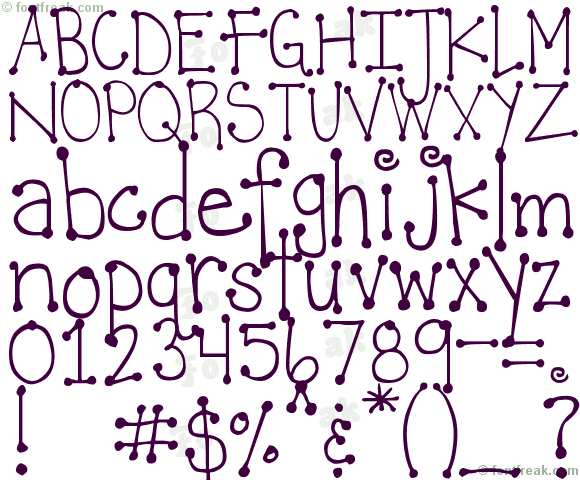
DJB It's Full of Dots by Darcy Baldwin is a whimsical handwritten typeface that adds a playful touch to any design project. This unique font features a distinctive dotted design that gives a sense of fun and creativity, making it a standout choice for those looking to add a bit of personality to their work. The strokes are irregular and light, contributing to a casual and approachable appeal. With its moderate contrast and open spacing, DJB It's Full of Dots offers excellent readability, ensuring that your message is conveyed clearly while still maintaining a sense of charm.
This font is particularly well-suited for a variety of creative applications. It shines in wedding invitations, where its lighthearted nature can evoke joy and celebration. Additionally, it works beautifully for children's book covers, helping to engage young readers with its fun aesthetic. Restaurant menus can also benefit from this typeface, as it adds a unique flair that can draw attention to special dishes. Lastly, DJB It's Full of Dots is perfect for social media graphics, allowing content creators to create eye-catching posts that stand out in crowded feeds.
What sets DJB It's Full of Dots apart is its ability to blend simplicity with a playful spirit. This font is not just a typeface; it is a creative tool that can transform ordinary designs into extraordinary ones, making it a must-have for anyone looking to make a memorable impact.